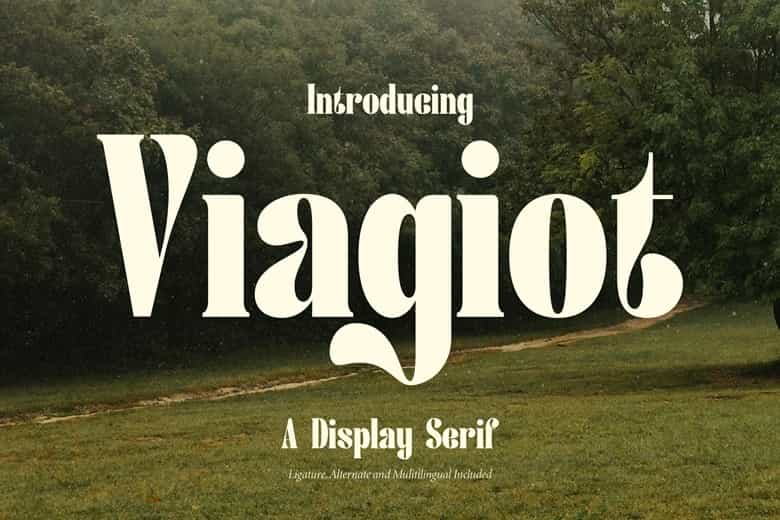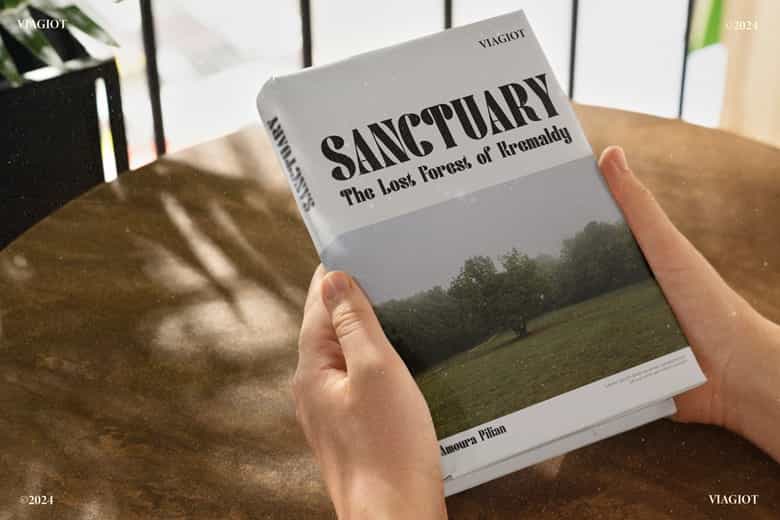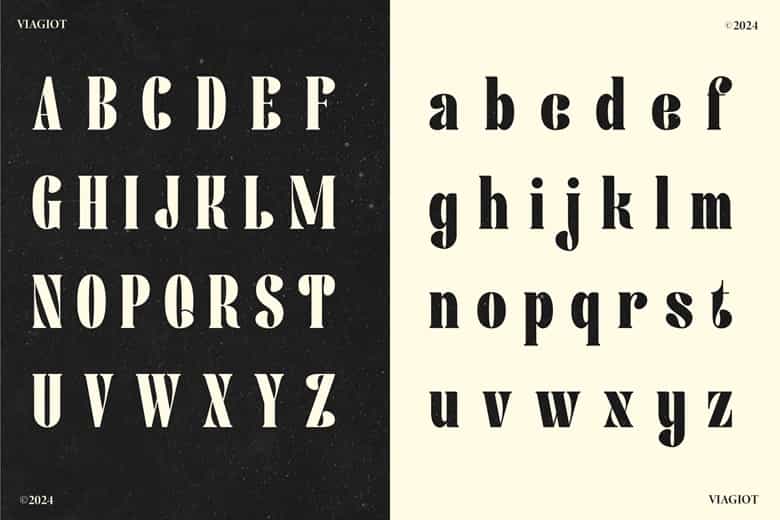
Viagiot is a display serif typeface designed with the elaborate and potent strokes of letters. It looks somewhat minimalist, contemporarily traditional, which can be effectively used for striking titles, headlines or logos. It just looks different and helps add character to any project that it’s incorporated into.